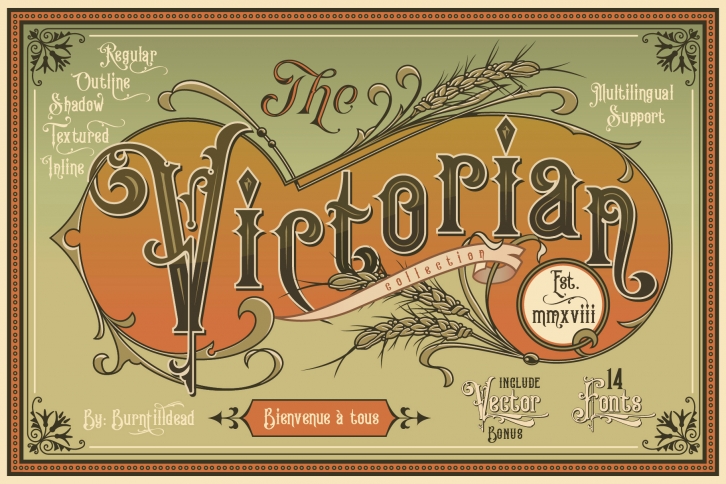
This Victorian Font Collection is the perfect family to make layered Victorion logos & designs in the blink of an eye.
You can add a classical Victorial vibe to your designs with this set of stunning, detailed decorative fonts.
Very Victorian, ornamental, decorative and classical. A solid combination that can bring your design, logo, document, website, etc. back to 1800’s. Multilingual fonts-family with 200 alternate characters.